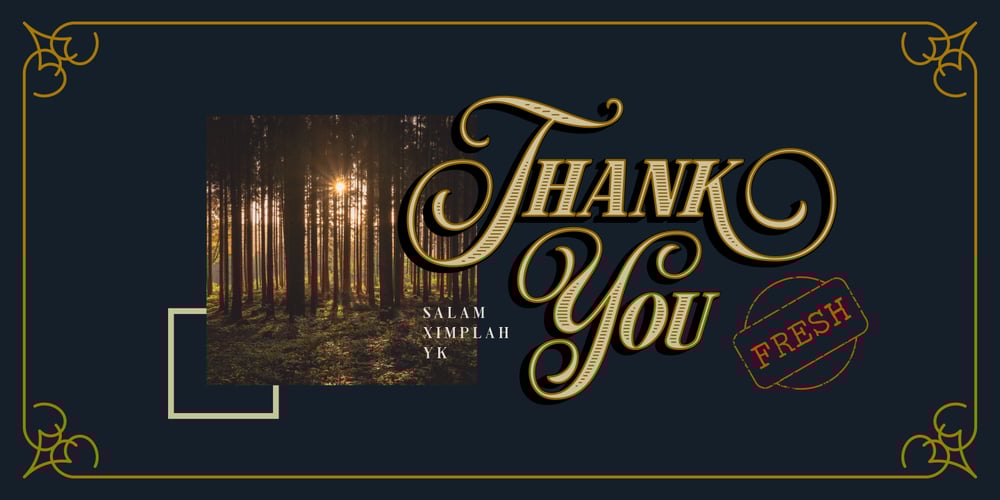
Hondurhas
Hondurhas font
Hondurhas Font Family was designed by Amir Subqi Setiaji, Bangkit Tri Setiadi and published by Bombastype. Hondurhas contains 7 styles and family package options. Hondurhas is our unusual idea for a font. Combining decorative copperplate lettering as the uppercase with decorative serif as the lowercase. Inspired by some lettering works on social media then we made our own. This font is very suitable for display purposes like you could see in our posters. We very like the elegant and luxury feel to it. With 340+ glyphs total , we also provide some layers option here to play with.